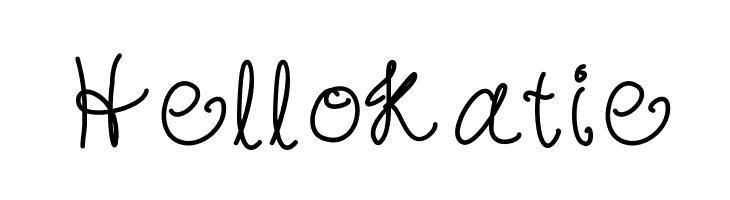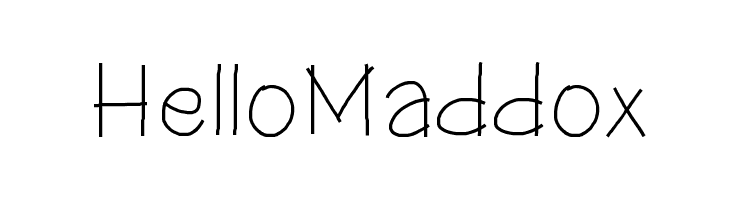
( Jen Jones - www.jenjonesfonts.com )
A playful, whimsical handwritten font with flowing, cursive-like letters.
( Jen Jones - www.jenjonesfonts.com )
A playful, handwritten font with rounded edges and a casual style.
( Jen Jones - www.jenjonesfonts.com )
A playful, hand-drawn style font with rounded, childlike characters.
( Jen Jones - www.jenjonesfonts.com )
A playful, hand-drawn font with dynamic strokes and a whimsical feel.
( Fonts by Jen Jones )
A playful, rounded font with smooth curves and consistent stroke width.
( Fonts by Jen Jones )
A playful, hand-drawn font with rounded characters and a friendly style.
( Fonts by Jen Jones )
A playful, handwritten font with a whimsical and casual style.
( Jen Jones - www.jenjonesfonts.com )
A playful, hand-drawn font with a sketch-like, double-line design.
( Jen Jones - www.jenjonesfonts.com )
A playful, handwritten font with bold, irregular strokes.
( Fonts by Jen Jones )
A playful, modern font with rounded edges and a clean aesthetic.